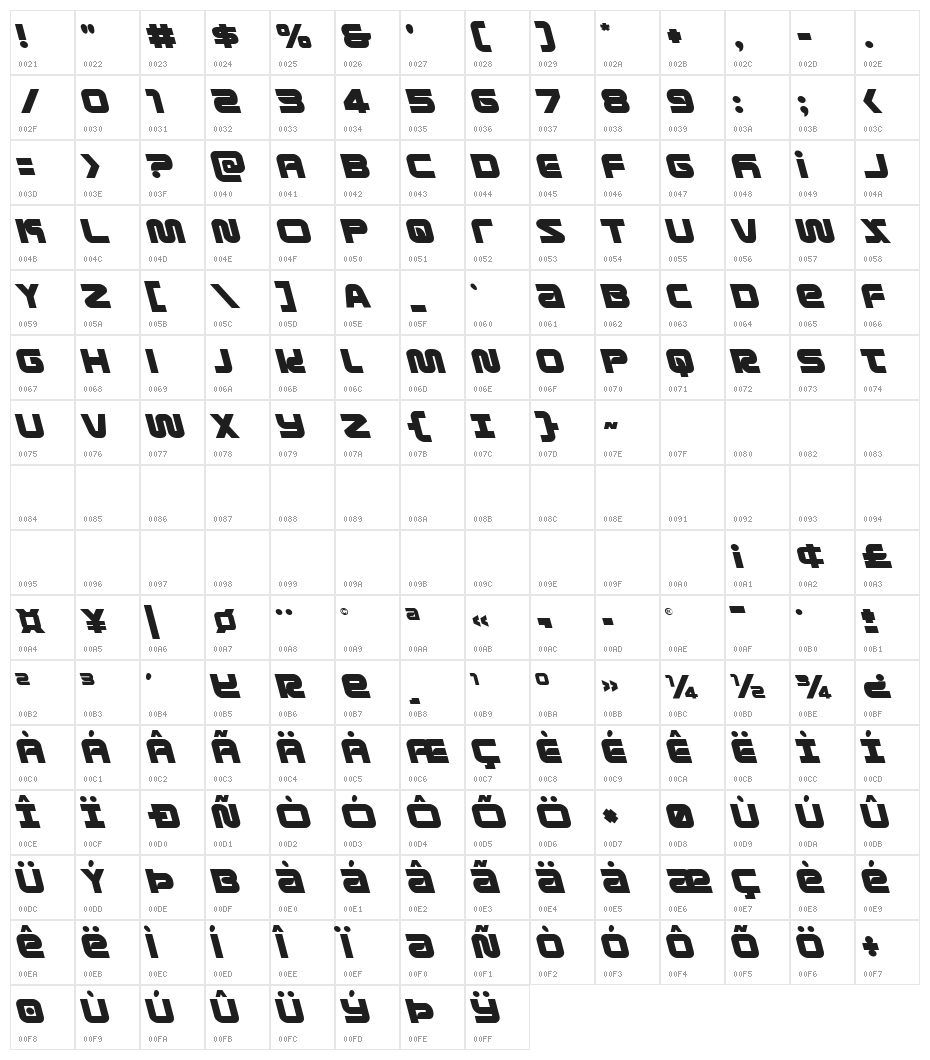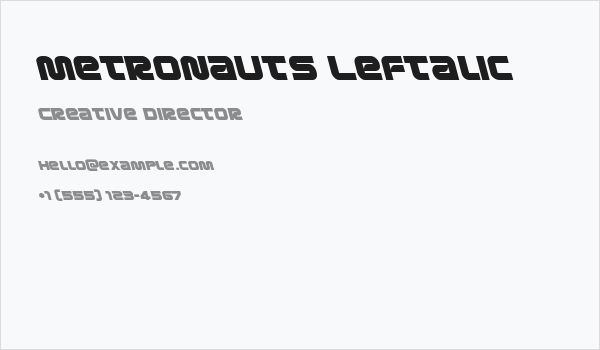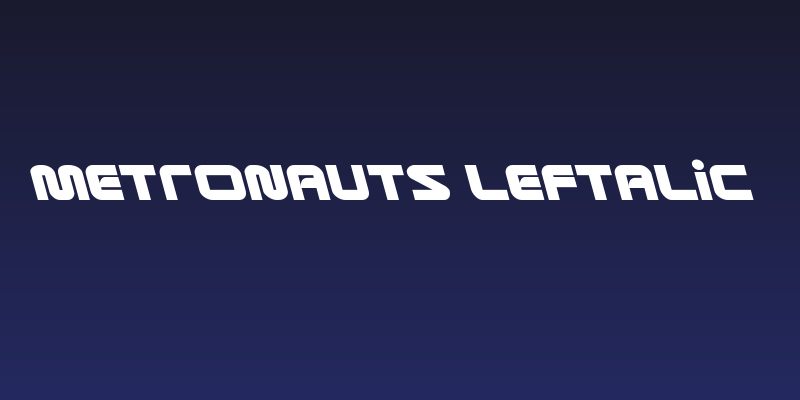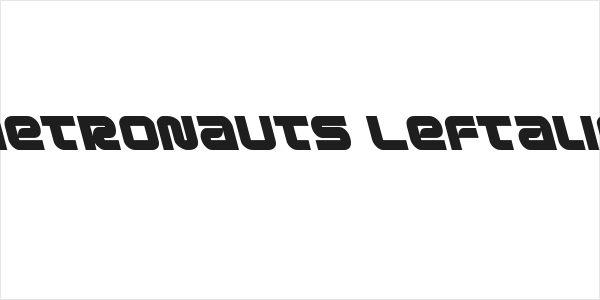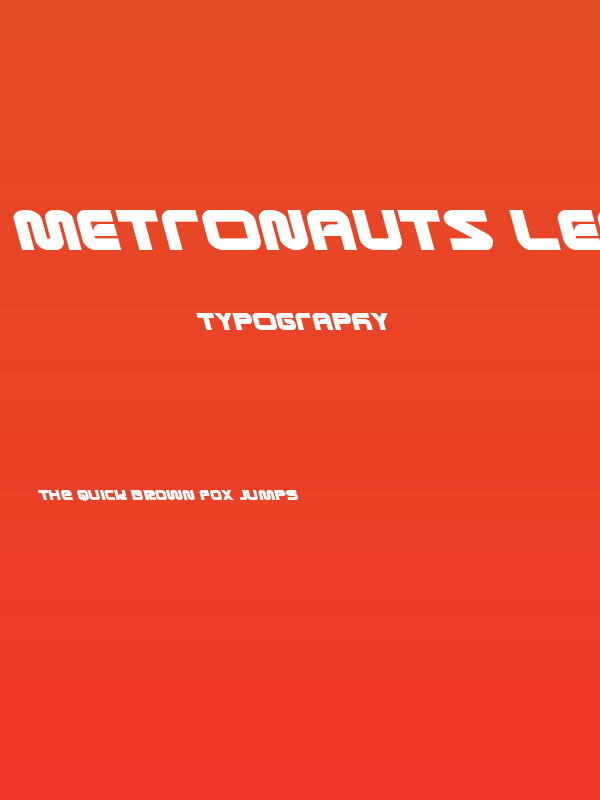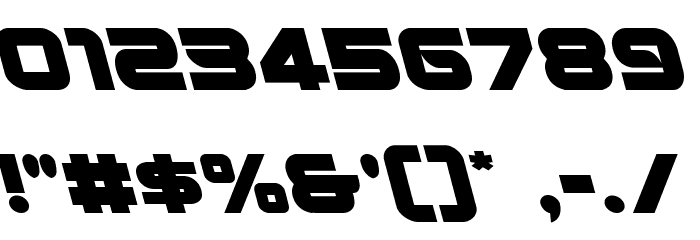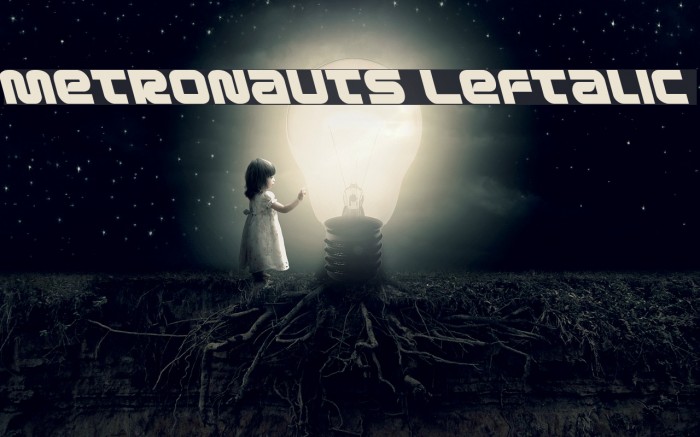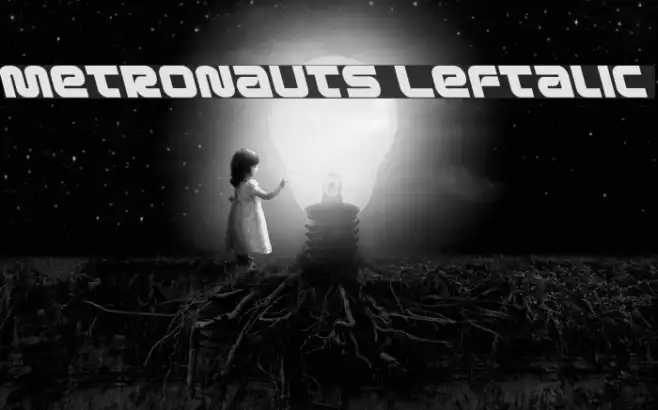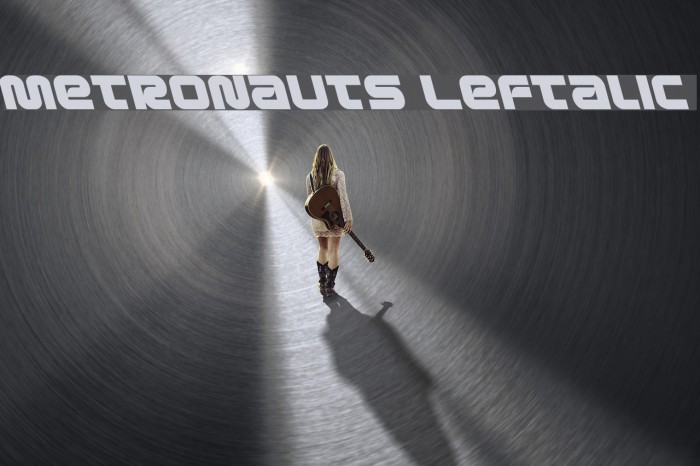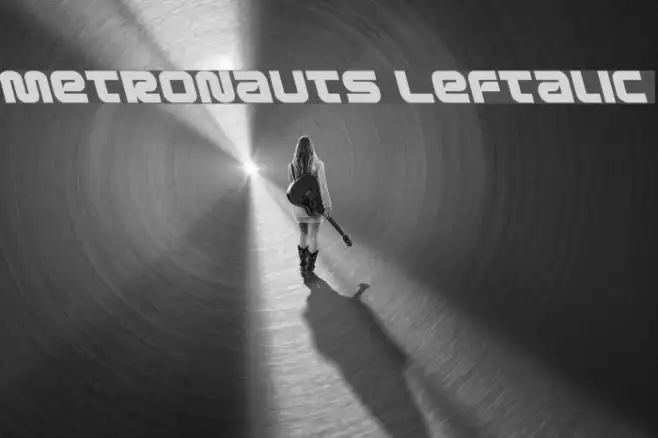
Metronauts Leftalic Font
Metronauts Leftalic Description
This font features a bold, futuristic design with a distinct geometric style. Each character is crafted with angular edges and a slightly italicized slant, giving it a dynamic and forward-moving appearance. The uppercase and lowercase letters maintain a consistent height, contributing to a uniform look across text. The numbers and special characters are designed to match the overall aesthetic, with sharp angles and a bold presence. This font is ideal for projects that require a modern and tech-inspired feel.
| Proposed Projects | Ideal for tech branding, sci-fi posters, video game titles, and modern advertisements. |